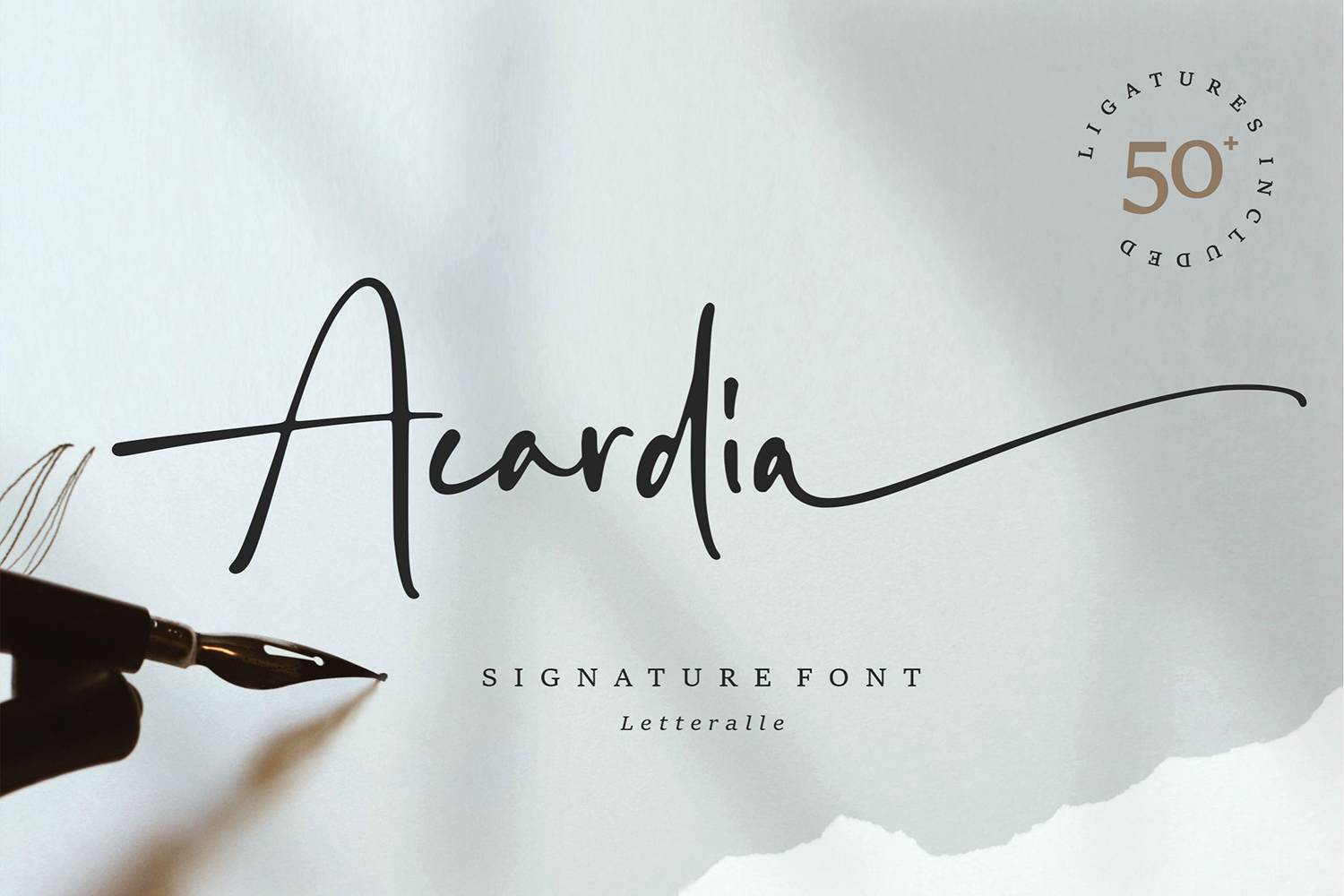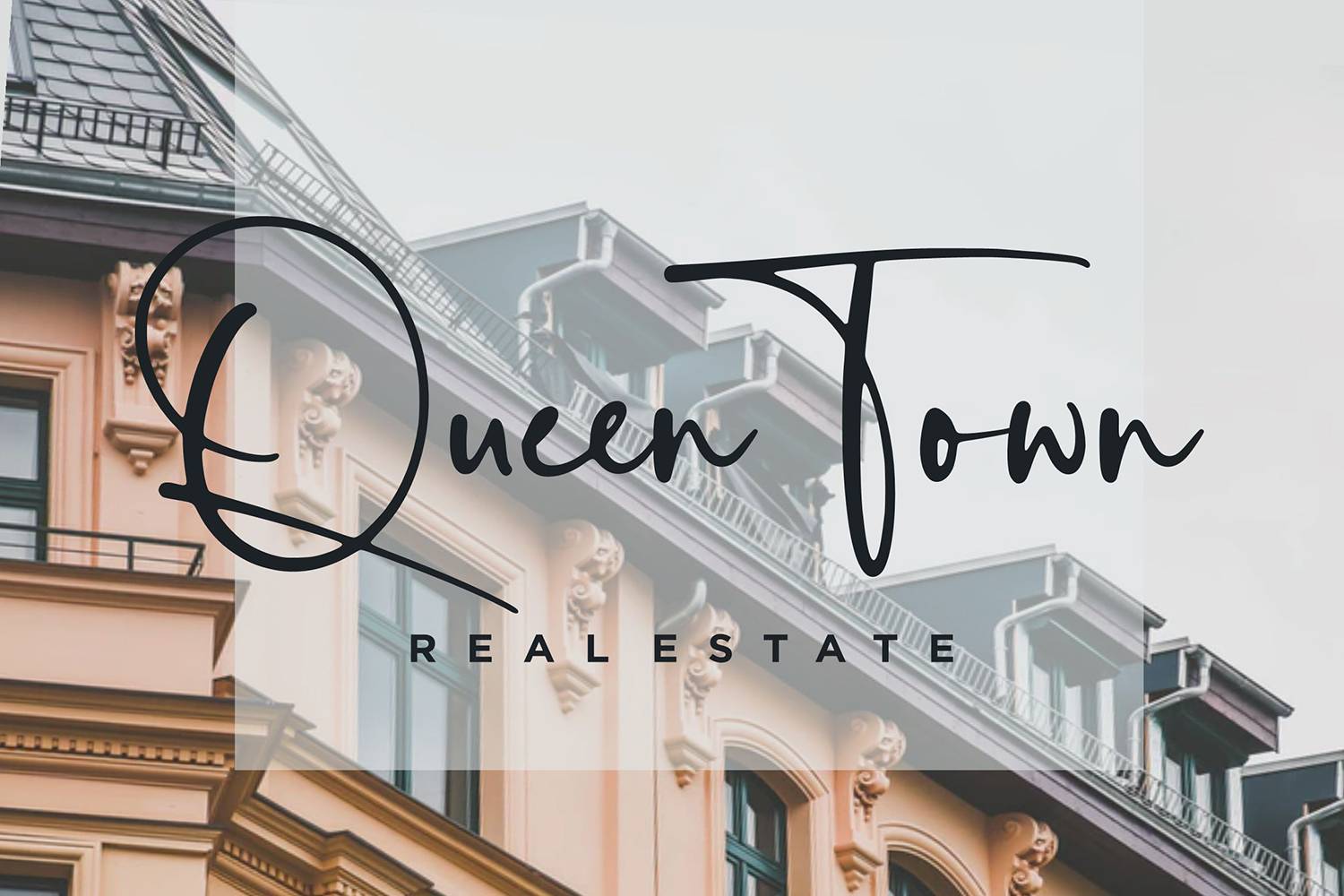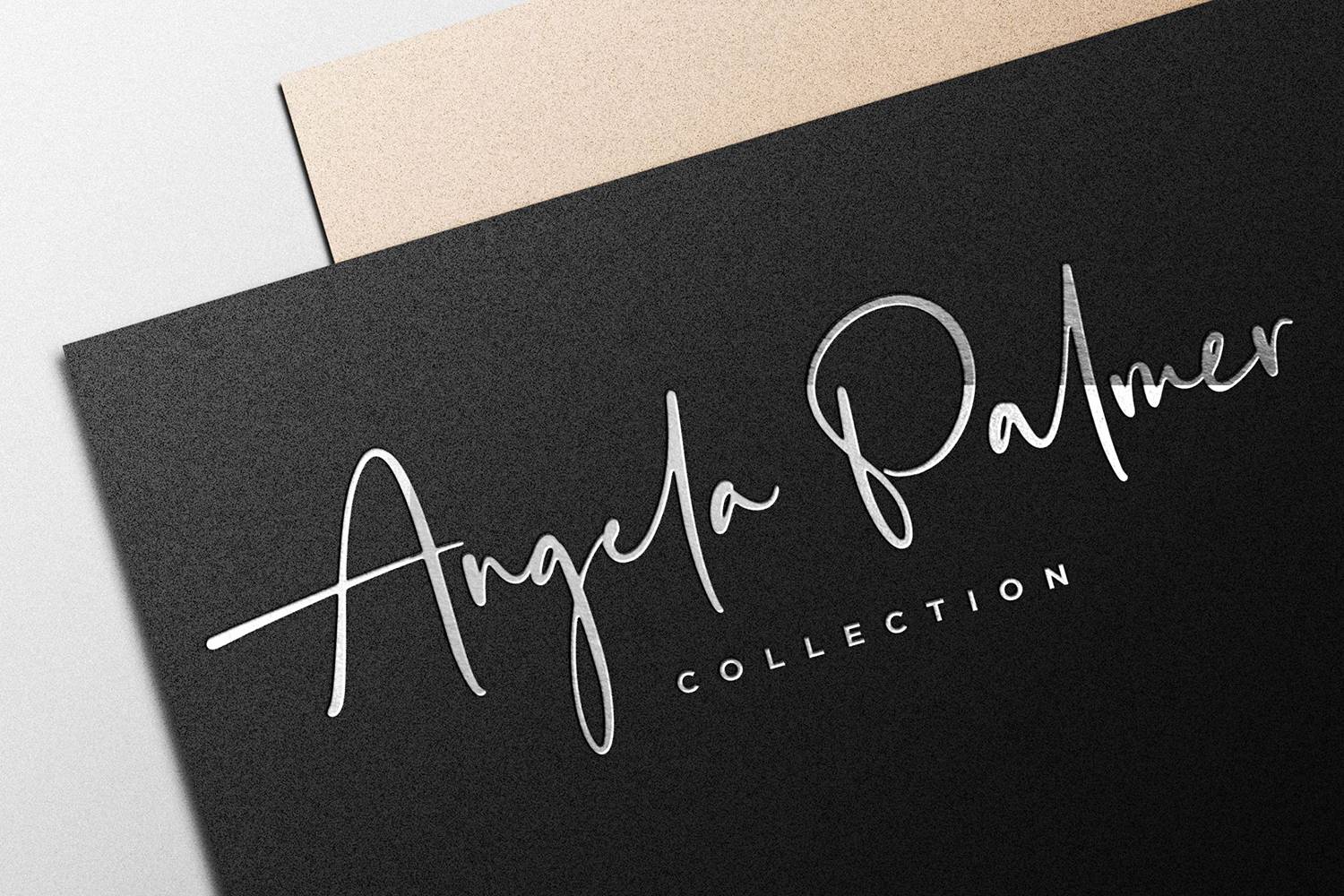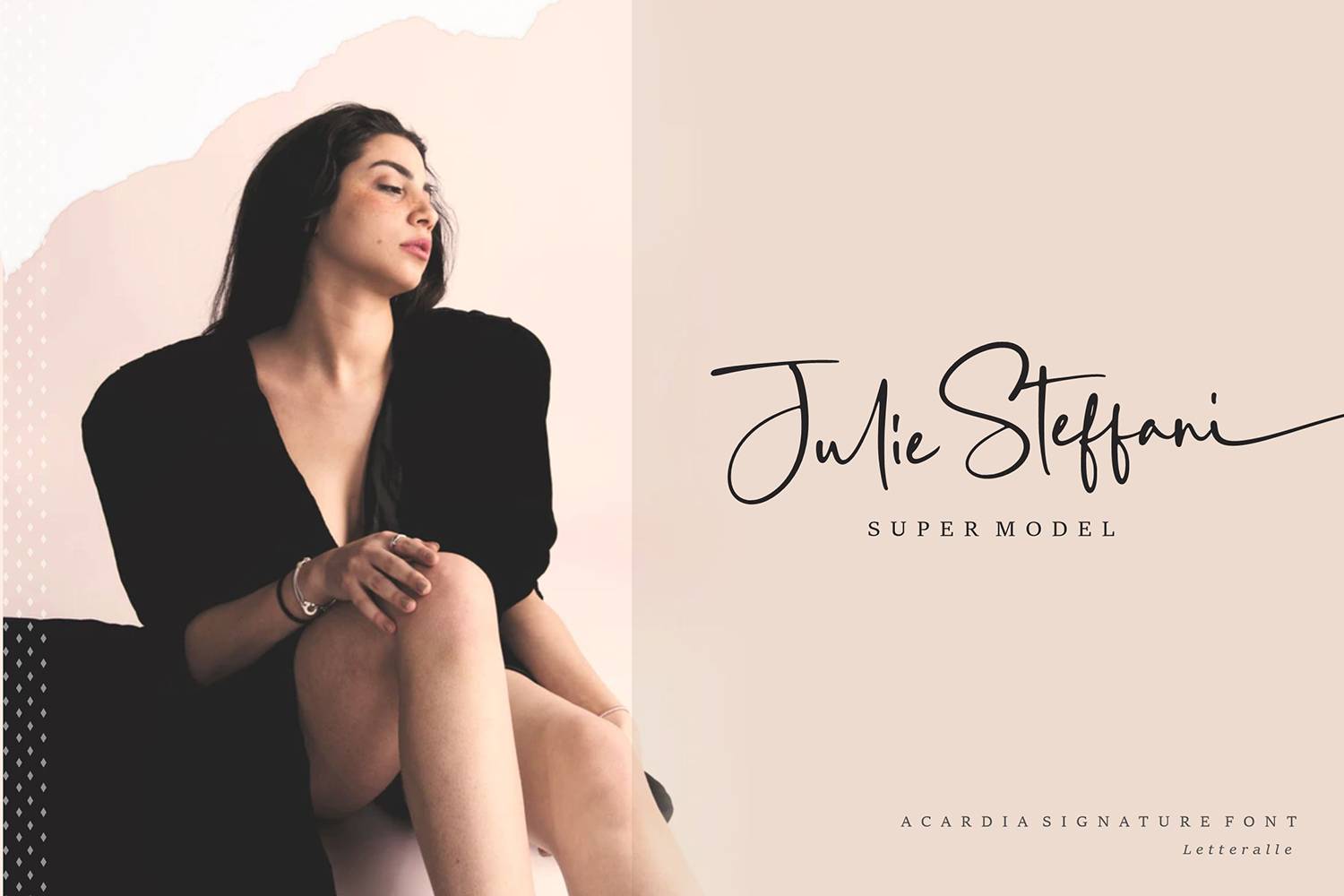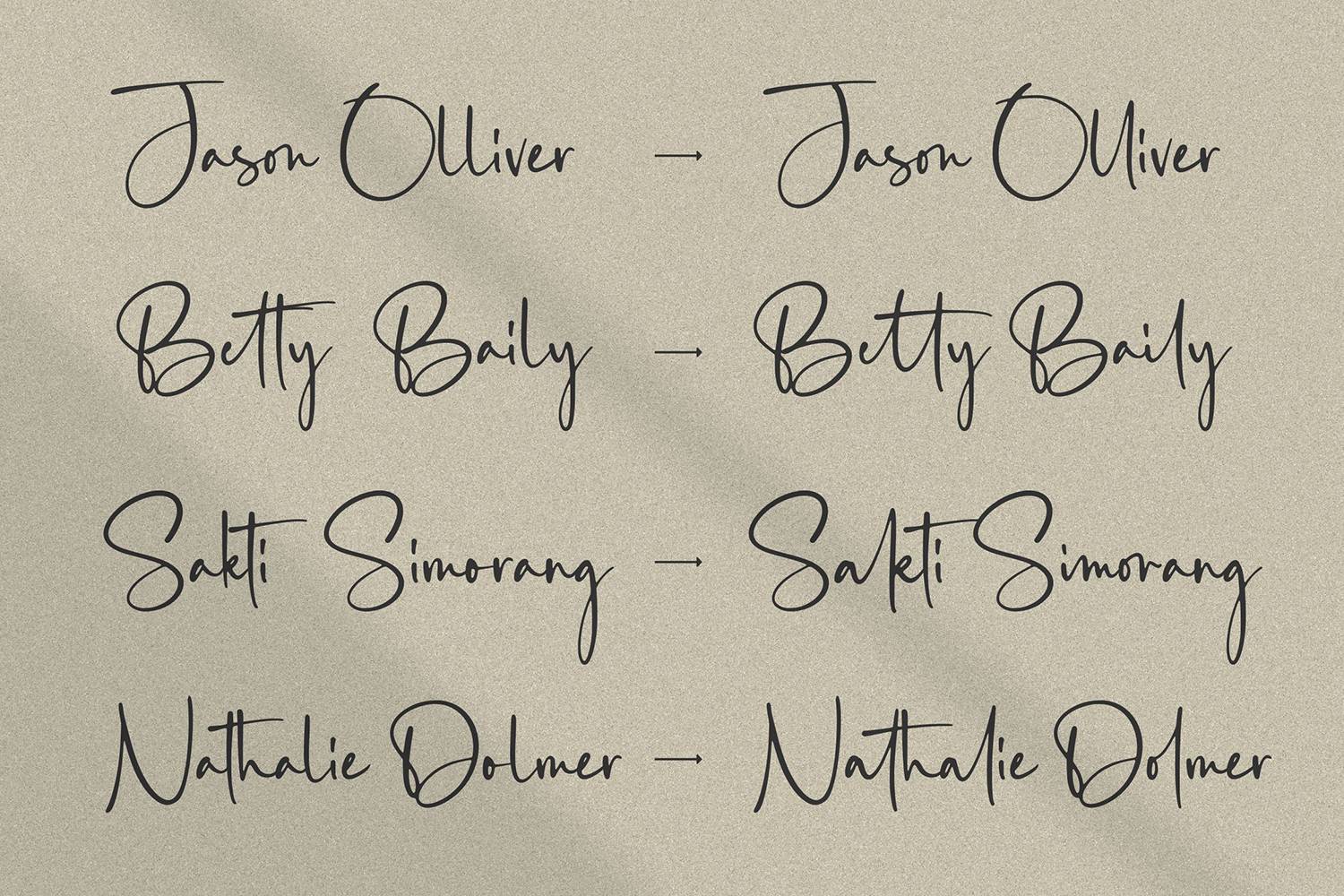
Acardia is a delicate and playful handwritten script font that features thin, irregular strokes and a casual, organic flow. Its tall, narrow letterforms and varying line weights give it a lively, personal feel, making it ideal for creative projects like invitations, branding, and social media graphics where a friendly, artistic touch is desired. This font’s airy, informal style works well to convey warmth and individuality in designs seeking a relaxed yet elegant vibe.
Acardia Font
About Acardia Font
| Font family | Acardia Font |
| Designer | Annas Alam Yahya |